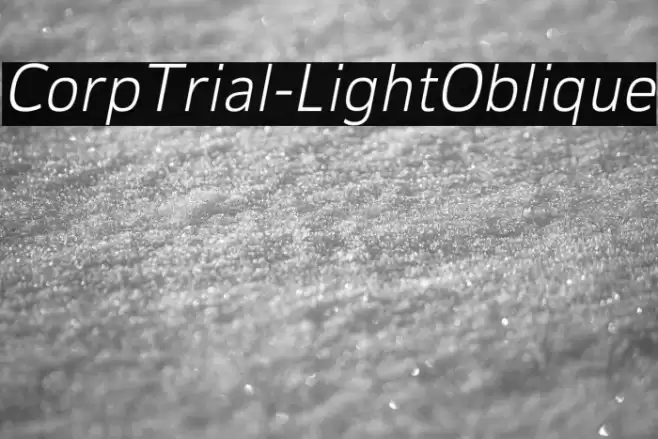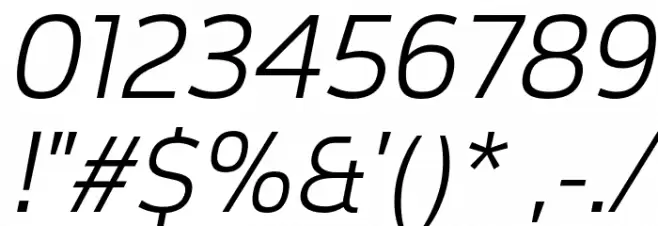
CorpTrial-LightOblique Font
CorpTrial-LightOblique Description
This font presents a sleek and modern aesthetic with its oblique style, offering a sense of motion and dynamism. The characters are clean and streamlined, with smooth curves and consistent stroke widths that contribute to its elegant appearance. The uppercase and lowercase letters maintain a harmonious balance, while the numerals and special characters are designed with clarity and precision. The overall look is minimalistic yet sophisticated, making it versatile for various design applications.
A sleek, modern oblique font with clean lines and a dynamic appearance from Regular fonts.
- Font: CorpTrial-LightOblique
- Proposed Projects: Ideal for branding, advertising, and editorial design projects where a modern and sophisticated look is desired.
- Weight: Light